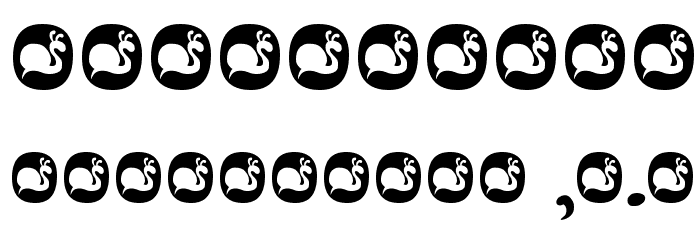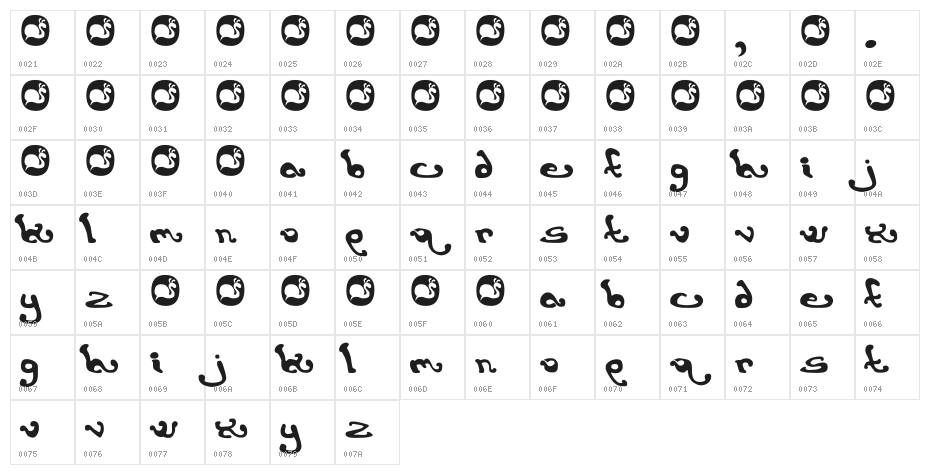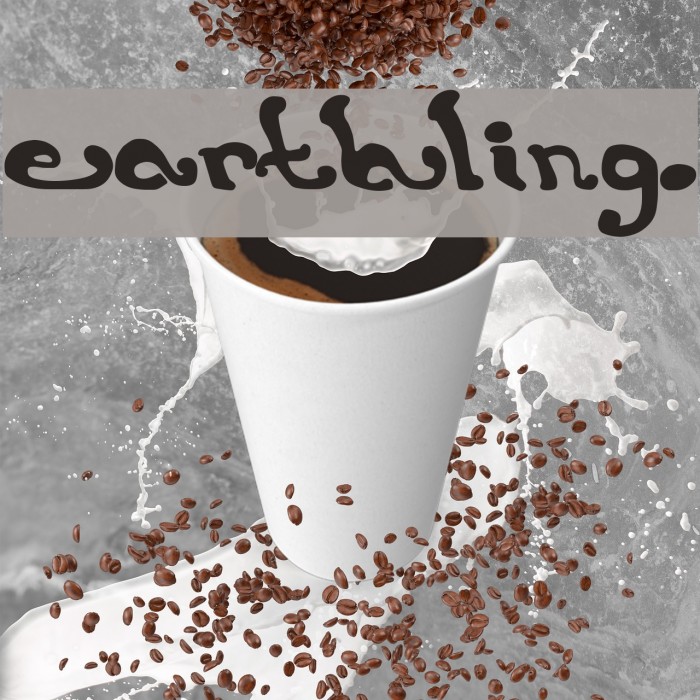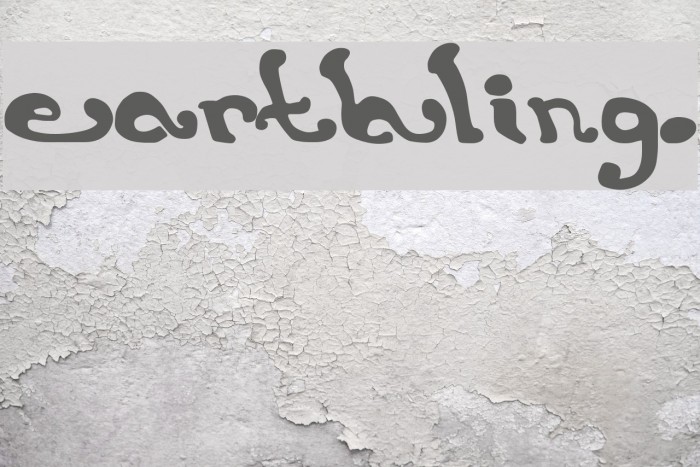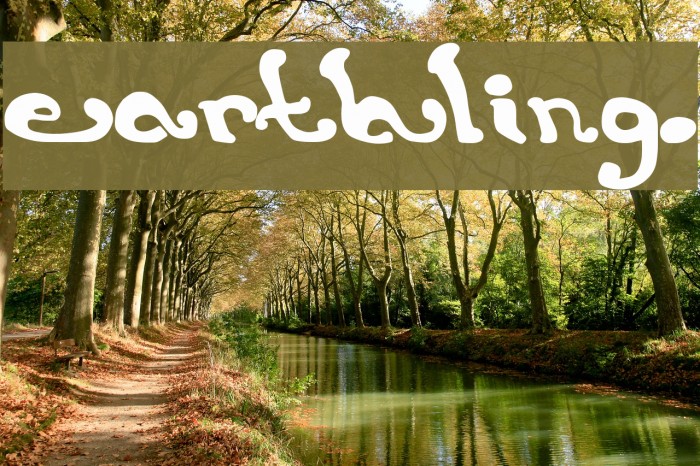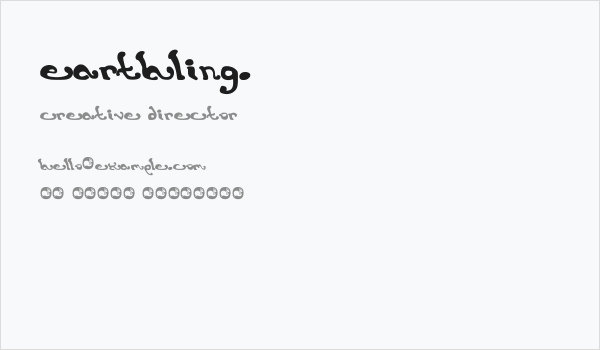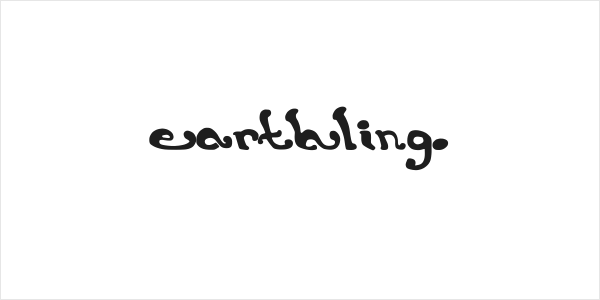
earthling. Font
earthling. Description
This font features a whimsical and playful design, characterized by its unique and artistic letterforms. Each character is crafted with a sense of movement and fluidity, incorporating curves and swirls that give it a lively appearance. The font has a decorative style, with each letter resembling a piece of art. The lowercase letters are particularly distinctive, with exaggerated loops and strokes that create a sense of rhythm and flow. The overall look is bold and eye-catching, making it suitable for creative and artistic projects. The font's design is consistent across all characters, maintaining a cohesive and harmonious aesthetic.
Use CaseLogos, Headlines, Artistic projects
Proposed ProjectsIdeal for creative projects such as children's books, artistic posters, and playful branding.